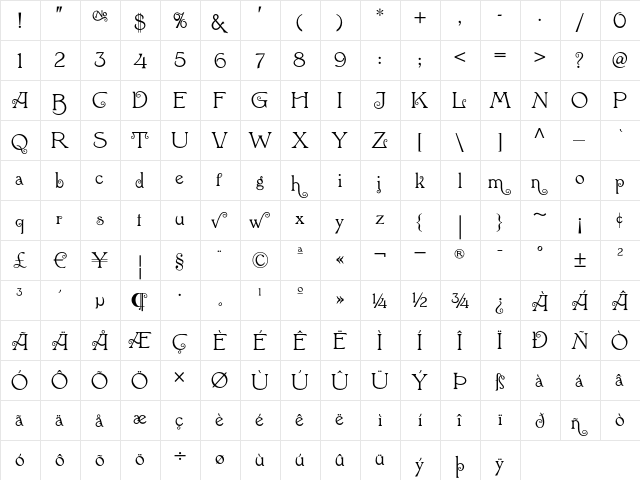
Cleveland Litho NF Regular
| Foundry | Nick's Fonts |
| Designer | Nick Curtis |
Design Context for Cleveland Litho NF Typeface
Cleveland Litho NF is a composed and adaptable typeface that performs quietly and consistently across a wide range of design contexts.